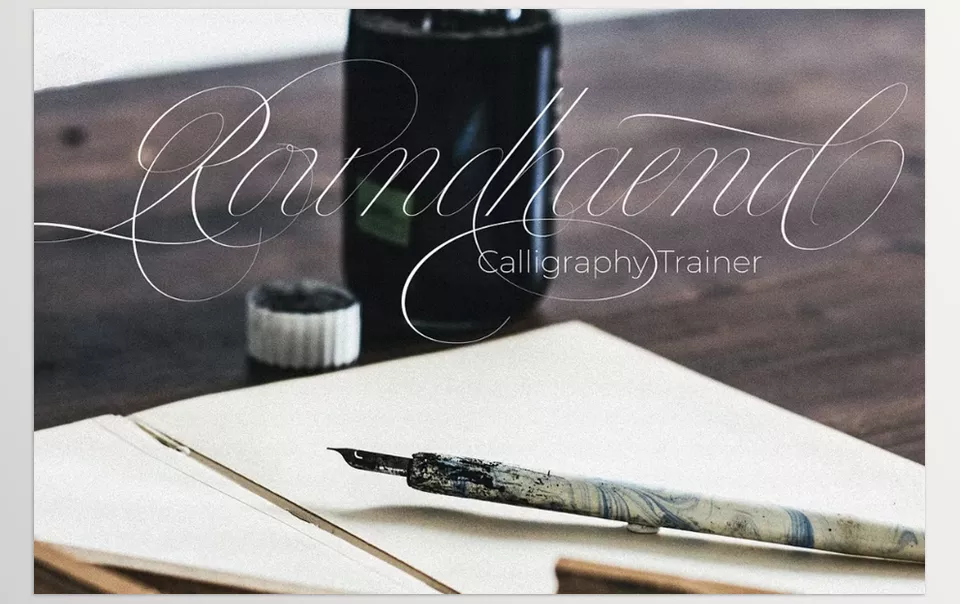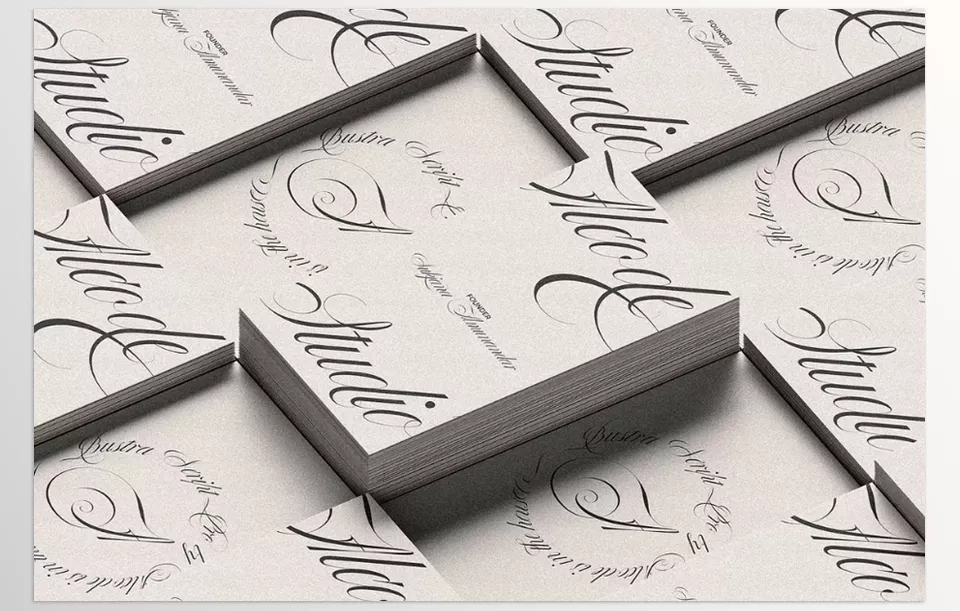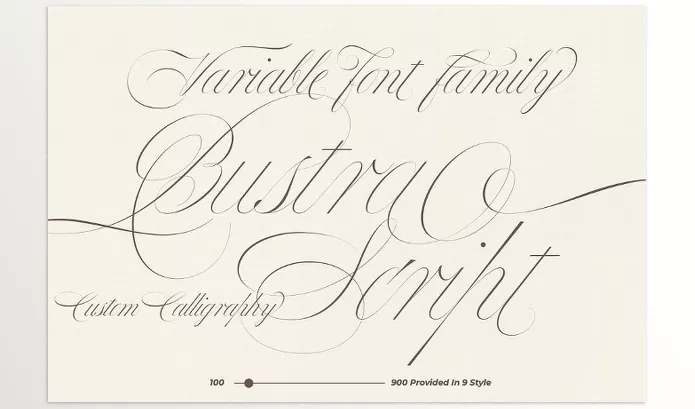
Bustra Script Pro is a slanted, cursive typeface for sophisticated, luxurious designs. It comes with 9 thicknesses and is in a variable file format, which makes it stylish and versatile. It features everything from contemporary custom ligature and character design projects such as logos, branding, and wedding invitations to luxury designs.
Alcode – Bustra Script Pro Features
• 9 Thicknesses: Allows application of various styles that enable unique designs.
• Variable File Format: Allows users to move and edit through various file types easily.
• OpenType Features: Like modern style ligatures and custom glyphs for enhanced creativity in design.
• Elegant and luxurious style: Best suited for more formal, elite, and classic design works.
• Perfect Pairing: Blends straight through with other typefaces, making completing the design easier.
Image 1: Enjoy the richness of OpenType features
Bustra Script Pro - Enjoy the richness of OpenType features
Image 2: Enhance your creativity!
Bustra Script Pro - enhance your creativity!